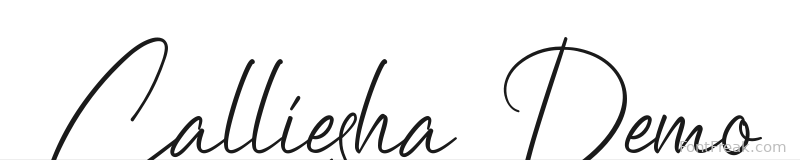
Calliesha Demo
The Calliesha Demo font by Noah Type is a stylish script typeface that captures the essence of modern elegance. As a handwritten font, it features fluid strokes and a charming, organic feel that resonates with creativity and personal touch. The visual characteristics of Calliesha Demo include a medium stroke weight with subtle variations, providing a graceful contrast that enhances its legibility while maintaining an artistic flair. The letters are well-spaced, allowing for easy reading, and each character has unique, decorative elements that contribute to its distinctive personality.
This font is perfect for a variety of creative applications. It shines in wedding invitations, where its romantic style can beautifully convey heartfelt messages. Additionally, it is an excellent choice for boutique branding, adding a touch of sophistication and warmth to logos and packaging. Calliesha Demo also works wonderfully for restaurant menus, giving a friendly yet refined vibe that complements culinary creativity. Content creators will find this font ideal for social media graphics and promotional materials, as it catches the eye and engages audiences effectively.
What sets Calliesha Demo apart is its perfect balance of elegance and approachability. It effortlessly combines a contemporary aesthetic with the warmth of handwritten typography, making it a standout choice for various design contexts. Whether you are crafting a heartfelt invitation or branding a new venture, Calliesha Demo is sure to leave a lasting impression.